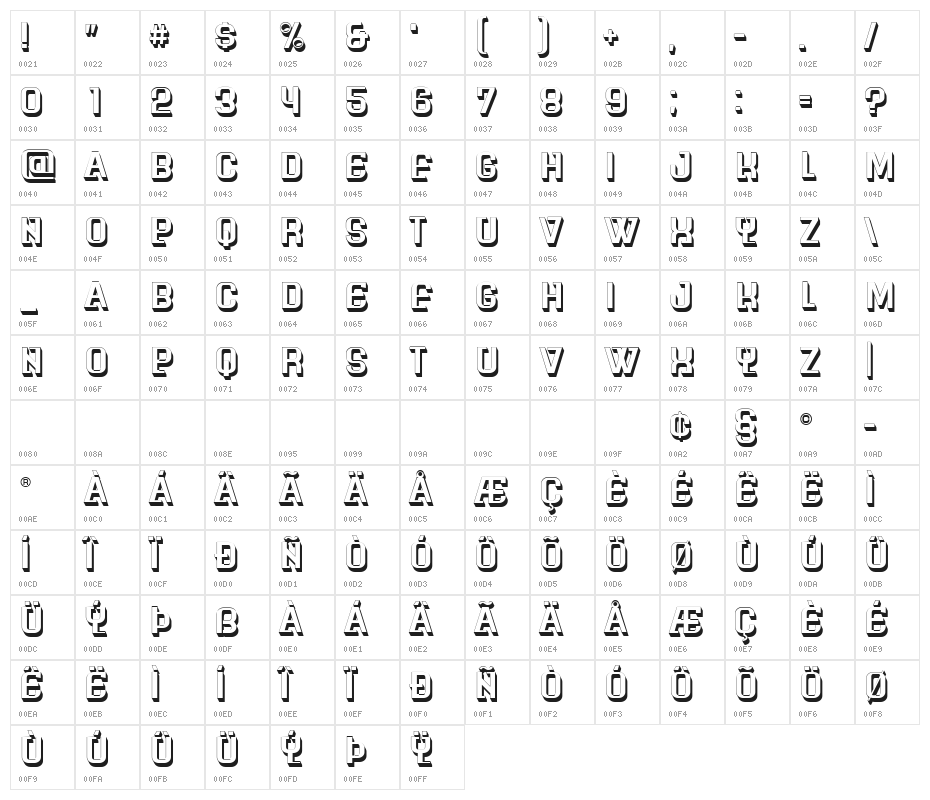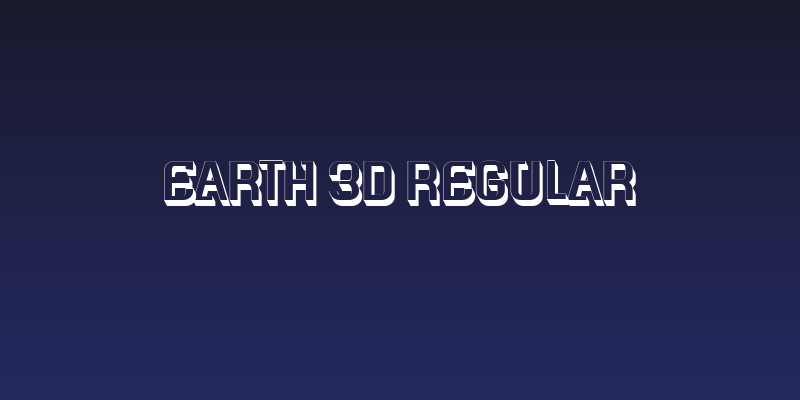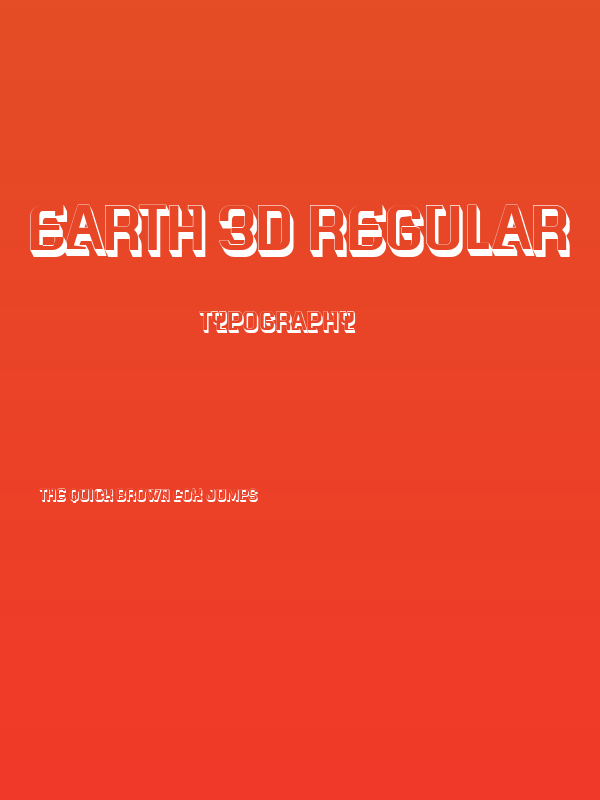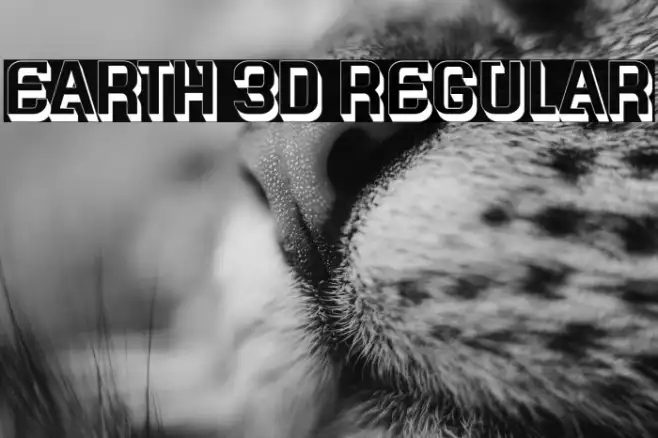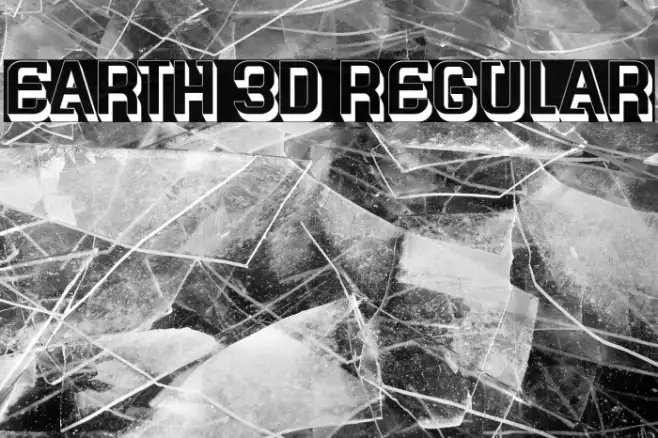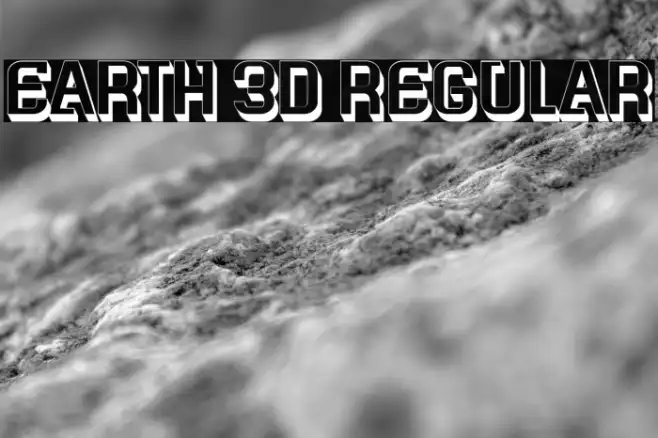
Earth 3D Regular Font
Earth 3D Regular Description
This font features a bold, three-dimensional style with a strong, impactful presence. The letters are capitalized and exhibit a shadow effect that gives them a sense of depth and solidity. The design is geometric and structured, with clean lines and sharp angles that enhance its modern and dynamic appearance. The characters are evenly spaced, providing a balanced and uniform look. This font is particularly eye-catching and is designed to stand out, making it ideal for attention-grabbing headlines or titles.